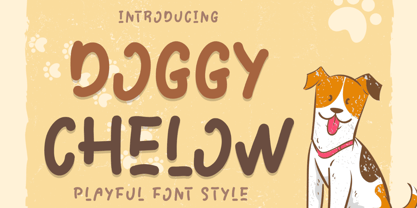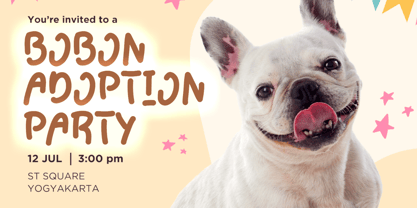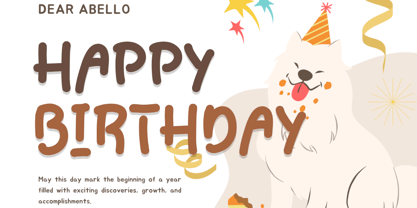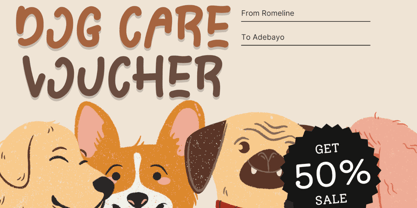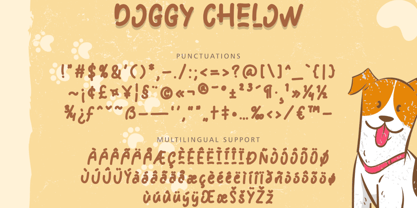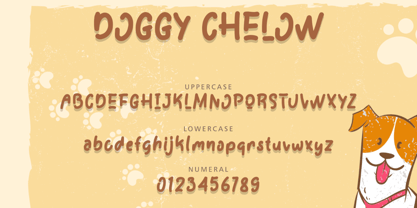
Doggy Chelow
by Yoga Letter
The Doggy Chelow Font Family was designed by Isroni Yoga Prasetya and published by Yoga Letter. Doggy Chelow contains 1 styles. More about this family
"Doggy Chelow" is a cute and unique display font. It comes with uppercase, lowercase, numbers, punctuation, and multilingual support. It is perfect for use as an animal font, comic, Christmas, winter, Easter, cartoon, poster, banner, branding, sticker, print, and more.
Designers: Isroni Yoga Prasetya
Current Foundry: Yoga Letter